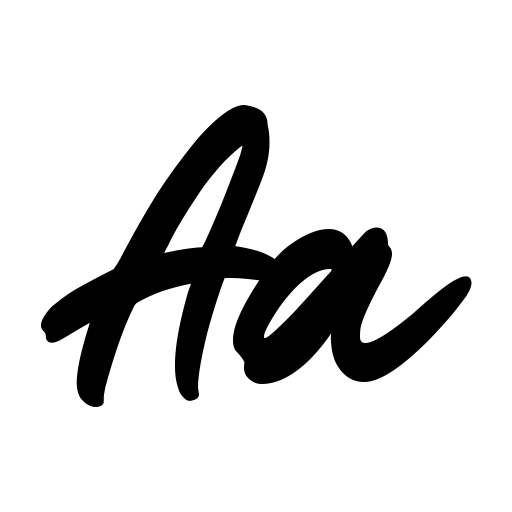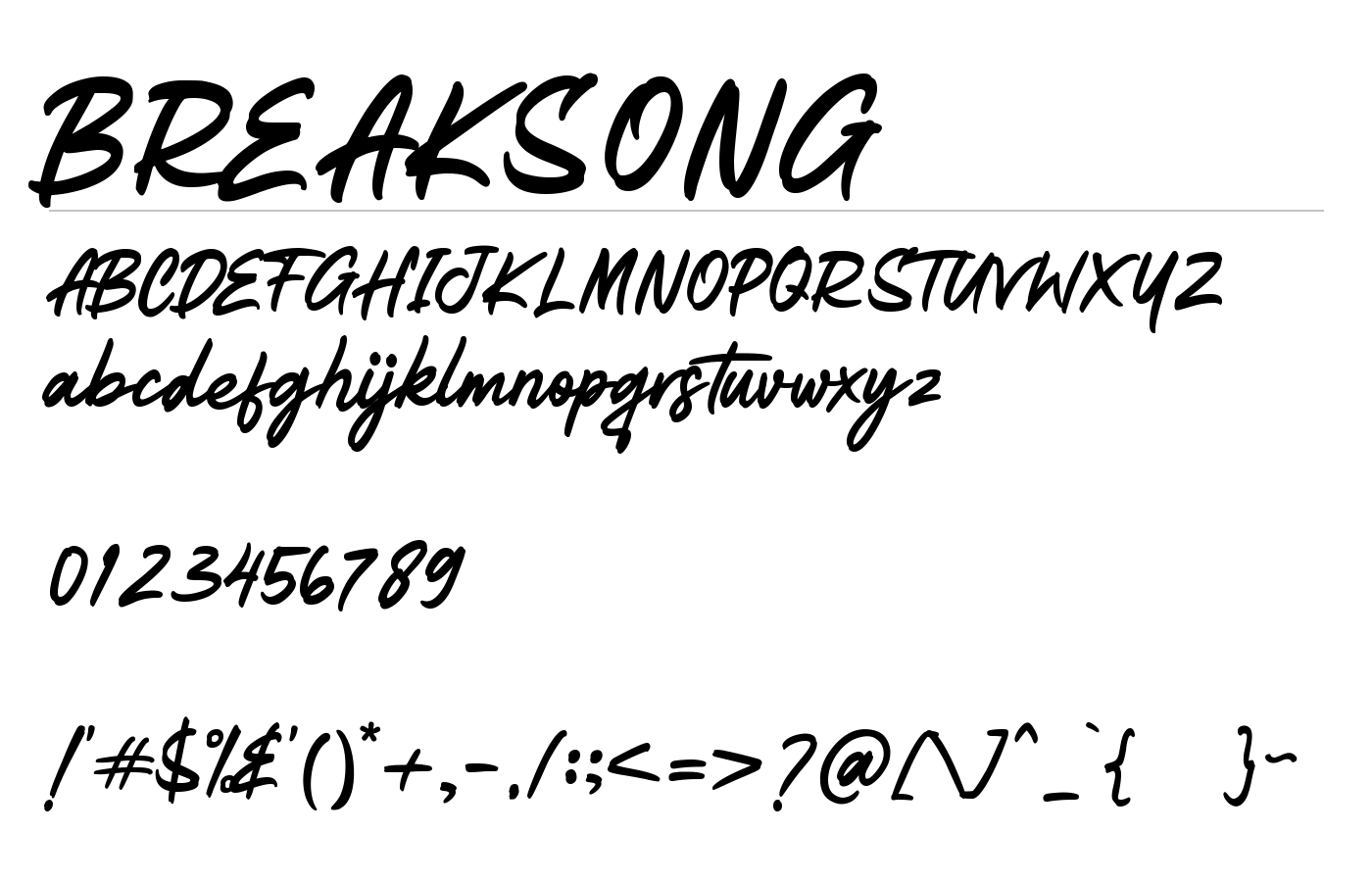
BREAKSONG is a lively, handwritten script font with a casual yet bold feel. Its slightly irregular strokes and dynamic flow give it an energetic, approachable personality, making it perfect for creative projects and informal branding. This font works well in headlines, logos, and packaging where a friendly, expressive touch is needed.
BREAKSONG Font
About BREAKSONG Font